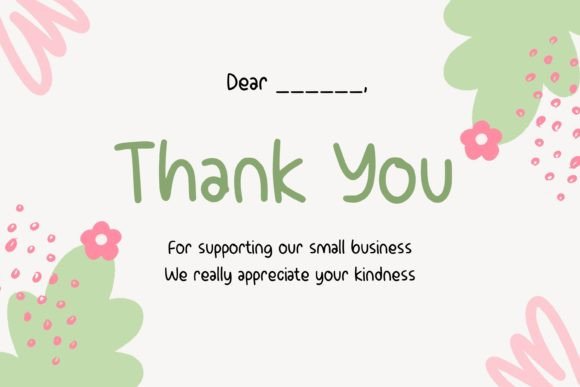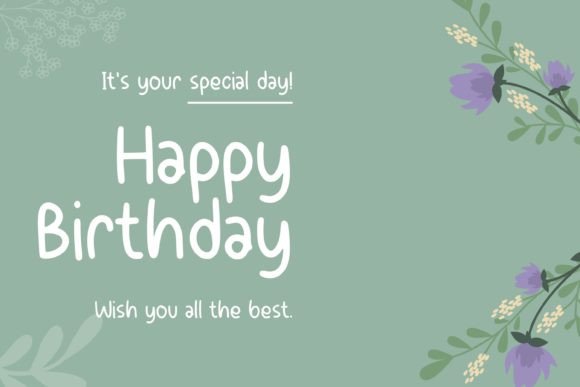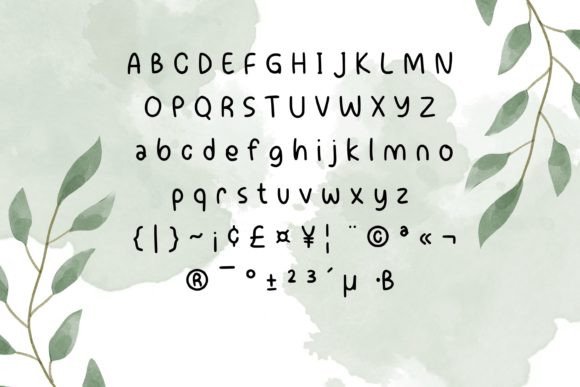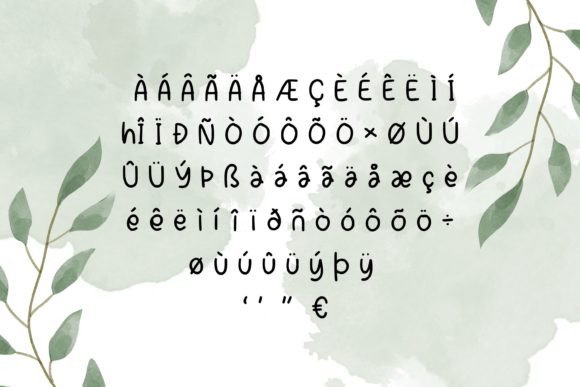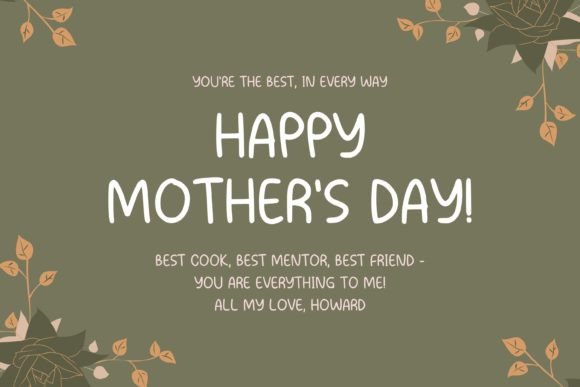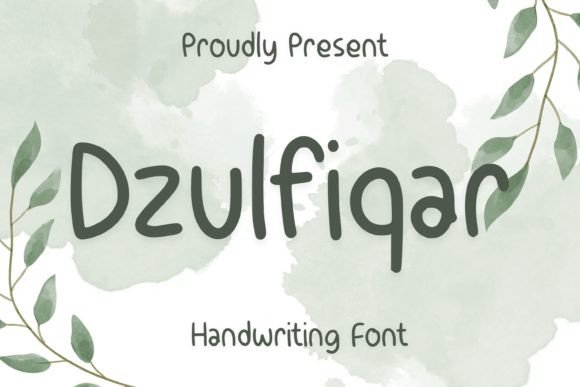
Dzulfiqar Font: Elevate Your Designs with a Simple yet Dainty Handwritten Style
In the world of typography, fonts play a crucial role in making or breaking a design. A well-chosen font can elevate your project, making it stand out from the crowd, while a poorly chosen one can have the opposite effect. For designers and crafters looking for a unique and versatile font, look no further than Dzulfiqar. This simple and dainty handwritten font is perfect for a wide range of designs, and its natural style makes it incredibly fitting for various projects.
What is Dzulfiqar Font?
Dzulfiqar is a beautifully crafted handwritten font that exudes simplicity and elegance. Its delicate strokes and natural flow make it perfect for designs that require a personal touch. The font’s unique style is both visually appealing and highly versatile, allowing designers to use it for a variety of projects, from wedding invitations and branding materials to packaging and digital media.
Key Features of Dzulfiqar Font
- Simple and Dainty: Dzulfiqar’s handwritten style is characterized by its simplicity and delicacy, making it perfect for designs that require a subtle yet elegant touch.
- Natural and Unique: The font’s natural flow and unique style set it apart from other fonts, giving designers a fresh and distinctive look.
- Highly Versatile: Dzulfiqar’s versatility makes it suitable for a wide range of designs, from formal and informal projects to digital and print materials.
- Easily Readable: The font’s clear and readable style ensures that your message is conveyed effectively, making it perfect for body text and headings.
Endless Possibilities with Dzulfiqar Font
One of the most significant advantages of Dzulfiqar is its endless possibilities. The font’s versatility and unique style make it an excellent choice for various design projects, including:
- Wedding Invitations and Stationery: Add a personal touch to your wedding invitations, save-the-date cards, and other stationery with Dzulfiqar’s elegant and delicate style.
- Branding and Packaging: Use Dzulfiqar to create unique and memorable brand identities, product labels, and packaging designs that stand out from the competition.
- Digital Media: Enhance your digital projects, such as social media graphics, blog posts, and website headers, with Dzulfiqar’s clean and readable style.
- Crafting and DIY Projects: Add a personal touch to your crafting and DIY projects, such as handmade cards, gift tags, and paper crafts, with Dzulfiqar’s whimsical and charming style.
Tips for Using Dzulfiqar Font Effectively
To get the most out of Dzulfiqar, here are some tips for using the font effectively:
- Pair with Other Fonts: Experiment with pairing Dzulfiqar with other fonts to create a unique and visually appealing contrast.
- Adjust Font Size and Color: Play with font sizes and colors to create visual hierarchy and emphasize important information.
- Use for Headings and Body Text: Use Dzulfiqar for both headings and body text to create a cohesive and harmonious design.
In conclusion, Dzulfiqar is a simple yet dainty handwritten font that offers a unique and versatile style for a wide range of designs. Its natural flow, elegance, and readability make it perfect for designers and crafters looking to add a personal touch to their projects. With its endless possibilities and flexibility, Dzulfiqar is an excellent choice for anyone looking to elevate their designs and create something truly special.